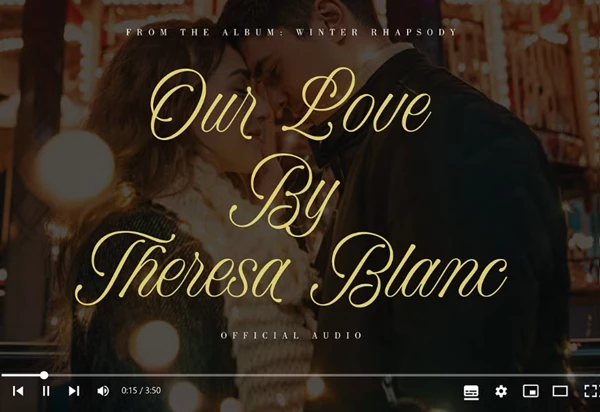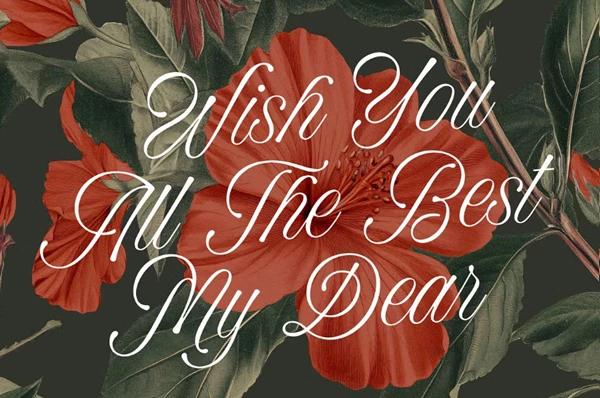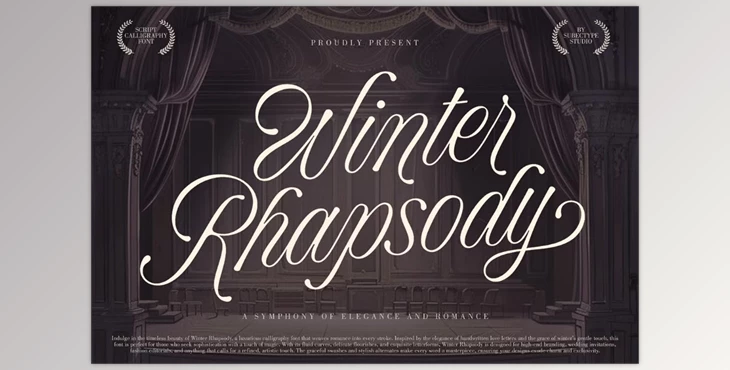
Winter Rhapsody - Calligraphy Font:
Winter Rhapsody is an elegant calligraphy font overflowing with a romantic flair. This makes the font ideal for wedding invitations, signature branding, and any project seeking refined beauty. Its unique and timeless appeal gives designers powerful design tools to create stunning visuals that speak sophistication and charm.
"Winter Rhapsody - Calligraphy Font" Samples: